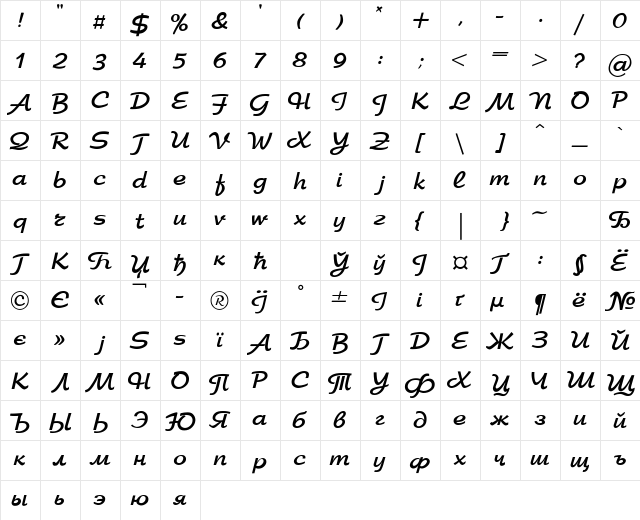
Arbat-Bold Regular
Design Context for Arbat-Bold Typeface
Arbat-Bold takes a measured approach to typography — its balanced proportions and neutral character make it a reliable workhorse for both digital and print work. The heavy weight commands attention and anchors typographic hierarchies.